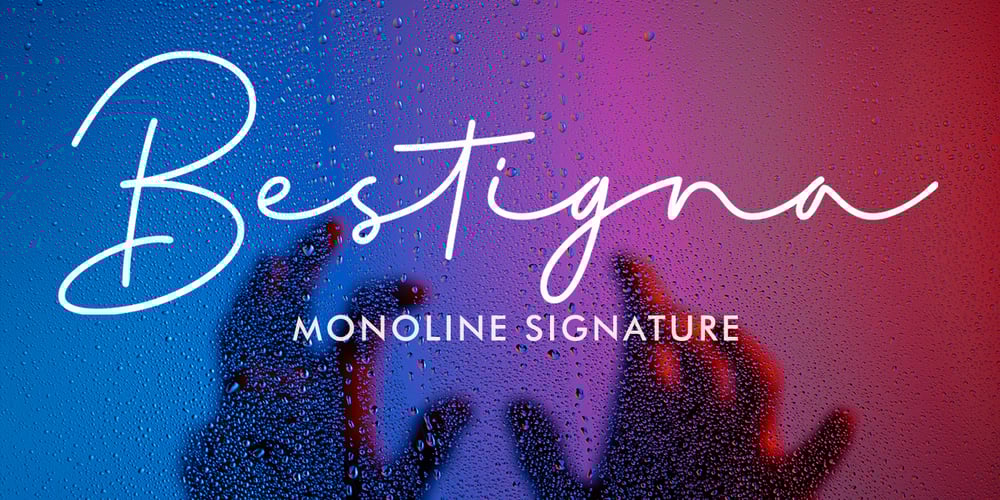
Bestigna Font Family was designed by Toni Irfandi and published by Tony Type Studio. Bestigna contains 1 styles and family package options. Bestigna is a signature style script font with stunning characters. It can be used for various purposes, such as logos, product packaging, wedding invitations, branding, headlines, signage, labels, signatures, book covers, posters, quotes and much more.